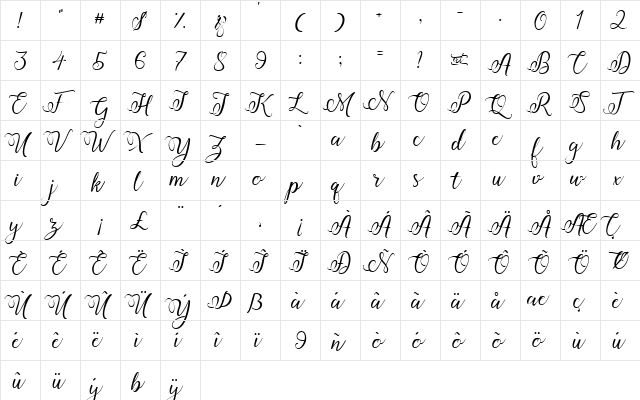
Amberlyn Script Regular
| Foundry | Misti's Fonts |
| Designer | Misti's Fonts |
Design Context for Amberlyn Script Typeface
Amberlyn Script flows with the natural rhythm of handwritten lettering, making it ideal for designs that call for warmth and personal expression.
Font Pairing: Combine Amberlyn Script with a simple geometric sans for maximum contrast — the tension between flowing curves and clean structure is a classic typographic pairing.
Pro Tip: Pair Amberlyn Script with a clean sans-serif for supporting text. The contrast between fluid script and geometric structure creates an elegant typographic hierarchy.